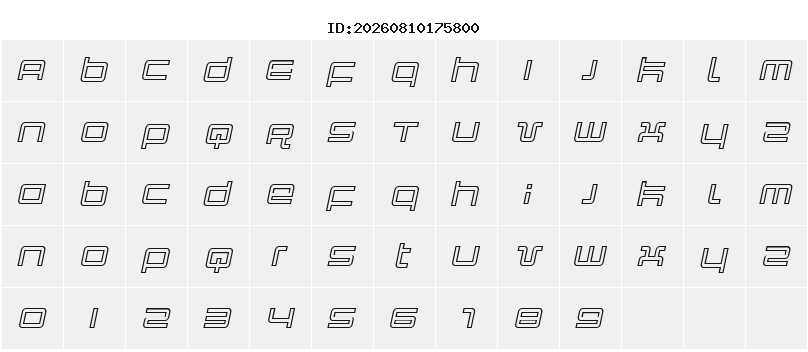
Quark Outline Preview
• Font Name: Quark Outline
• Full Font Name: Quark Outline Italic
About Quark Outline.ttf
Quark Outline.ttf is a modern, elegant sans-serif font designed for ultimate readability and visual harmony. Perfect for branding, headlines, web design, and print materials.